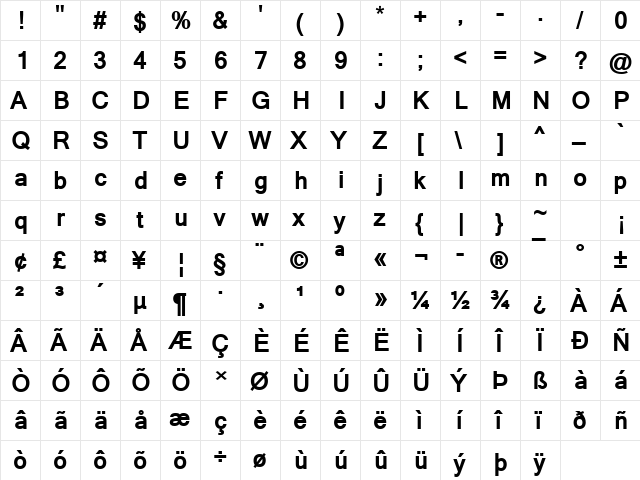
Kartika Bold Font Preview
Kartika Bold
Kartika Bold Font Details
Design Context for Kartika Typeface
Kartika is a composed and adaptable typeface that performs quietly and consistently across a wide range of design contexts. The heavy weight commands attention and anchors typographic hierarchies.